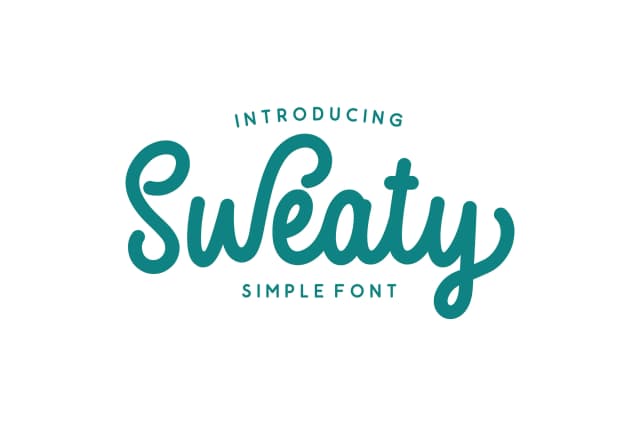
About Sweaty Font
Sweaty is a simple script typeface which is simple and funny.
Good for Logos, Titles, Tees Design or Indie flyer and Poster.
Sweaty Font